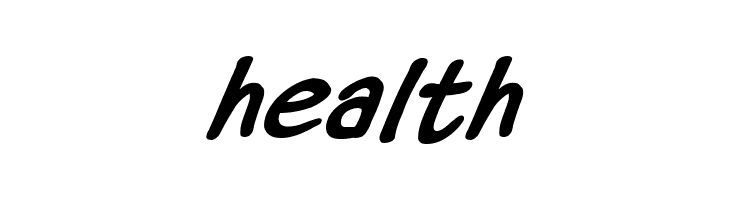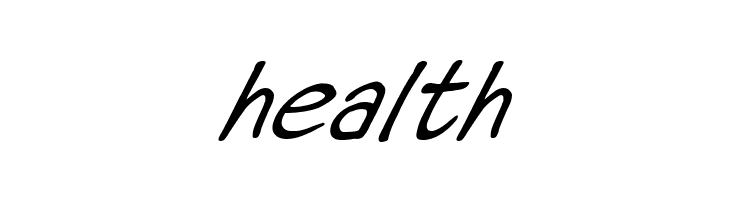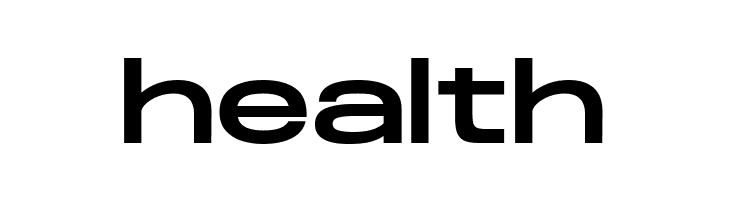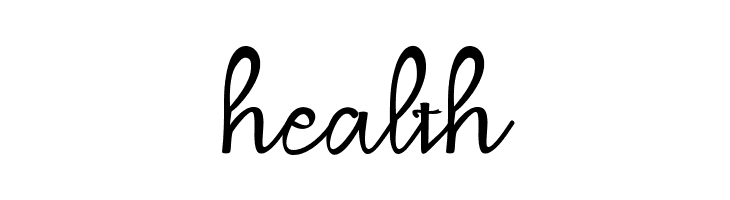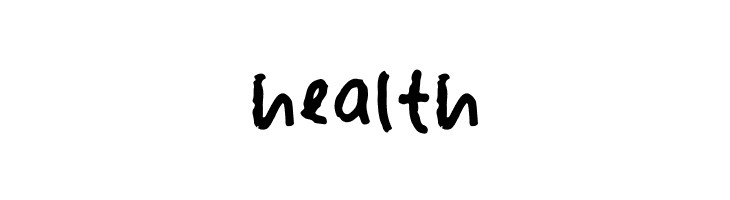
A bold, italic script font with a dynamic, handwritten style.
A fluid, italicized handwritten font with a dynamic and elegant style.
A whimsical and elegant script font with flowing, cursive characters.
A bold, expressive handwritten font with thick, textured strokes.
A bold, expressive handwritten font with dynamic, textured strokes.
A bold, modern sans-serif font with geometric lines and strong presence.
Casual handwritten font with an informal style.
A playful, hand-drawn font with tall, narrow characters and a whimsical style.
A bold, modern font with geometric and clean lines.
A dynamic, flowing script font with a handwritten calligraphy style.